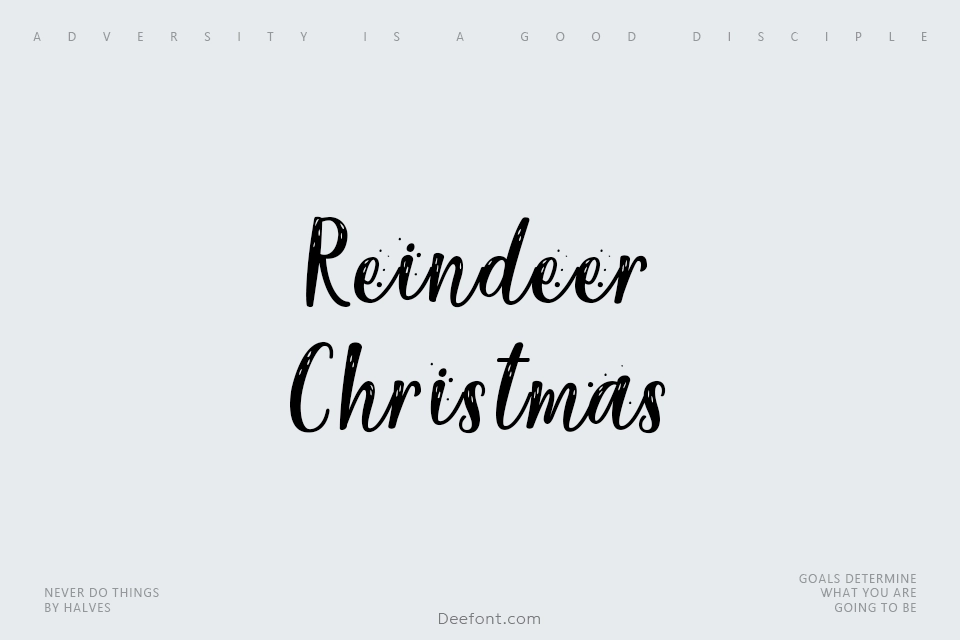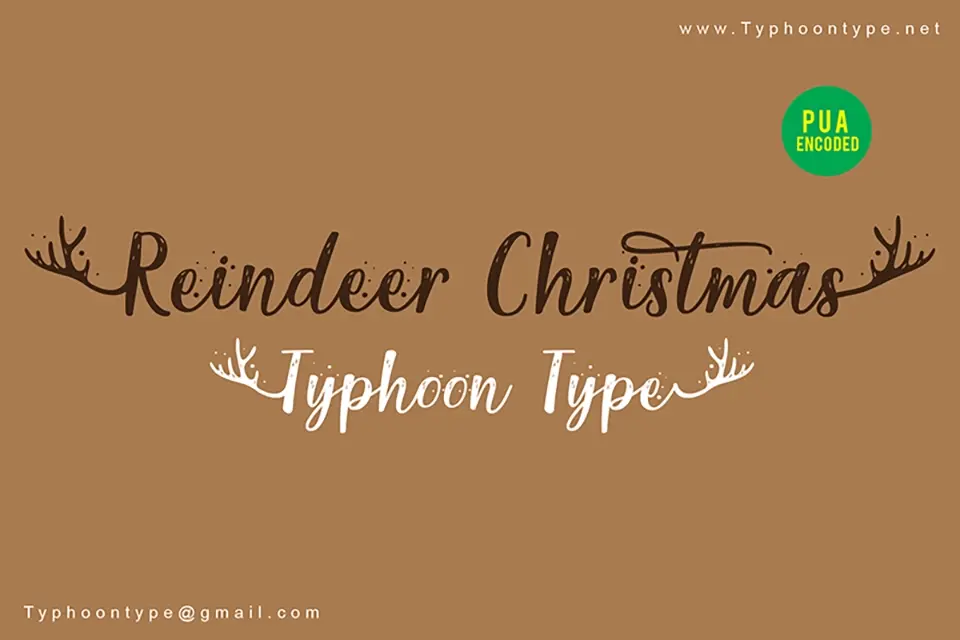
Reindeer Christmas Font
Reindeer Christmas is a playful and festive display font designed by Typhoon Type™ – Suthi Srisopha. This font features whimsical letterforms with decorative swashes, creating a joyful holiday atmosphere perfect for Christmas cards, invitations, seasonal branding, and creative projects. The font is free for personal use, but a commercial license is required for business purposes. With its charming and cheerful design, Reindeer Christmas stands out as an ideal choice for adding a touch of holiday spirit to your creative work.